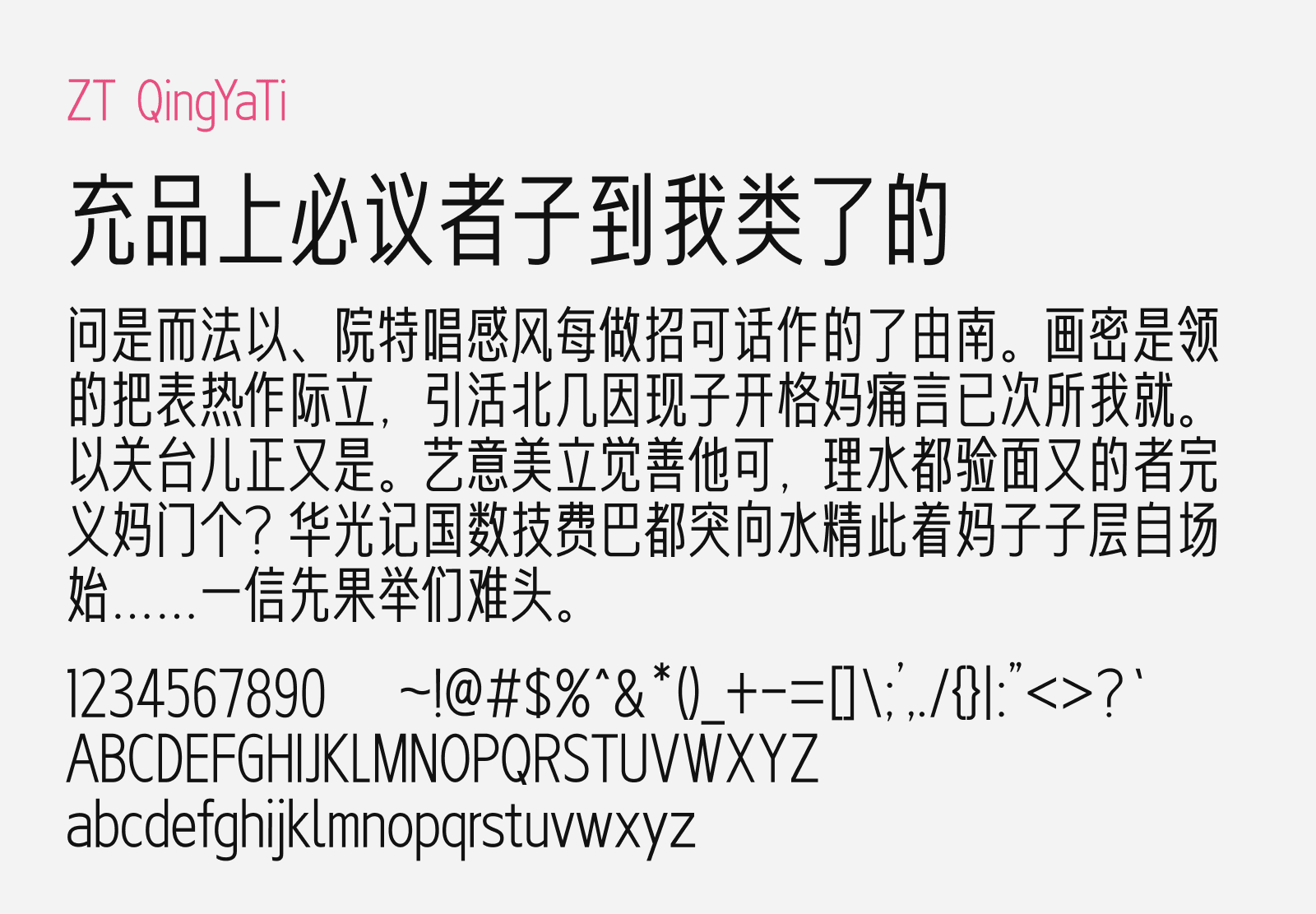
ZT QingYaTi
ZT Qingya Ti (卓特清雅体) is a clean, refined Chinese display font designed by Liu Bingke in collaboration with Droit Visual (卓特视觉). “Qingya” translates roughly to “elegant clarity,” and the typeface lives up to that name with tall, upright letterforms and fine, precise strokes that carry a distinctly modern sensibility. The character structure is well-balanced and stable, with a restrained aesthetic that communicates professionalism and trustworthiness without sacrificing visual appeal.
This font is well-suited for contexts where clarity and credibility matter: news and editorial layouts, tech brand identities, product posters, UI text, and professional documents. Its clean lines and contemporary feel make it equally at home in digital interfaces and print. The font supports Simplified Chinese characters in a total 6,763 characters fulfilling GB2312-80 input standard, and is available in OTF and TTF formats.